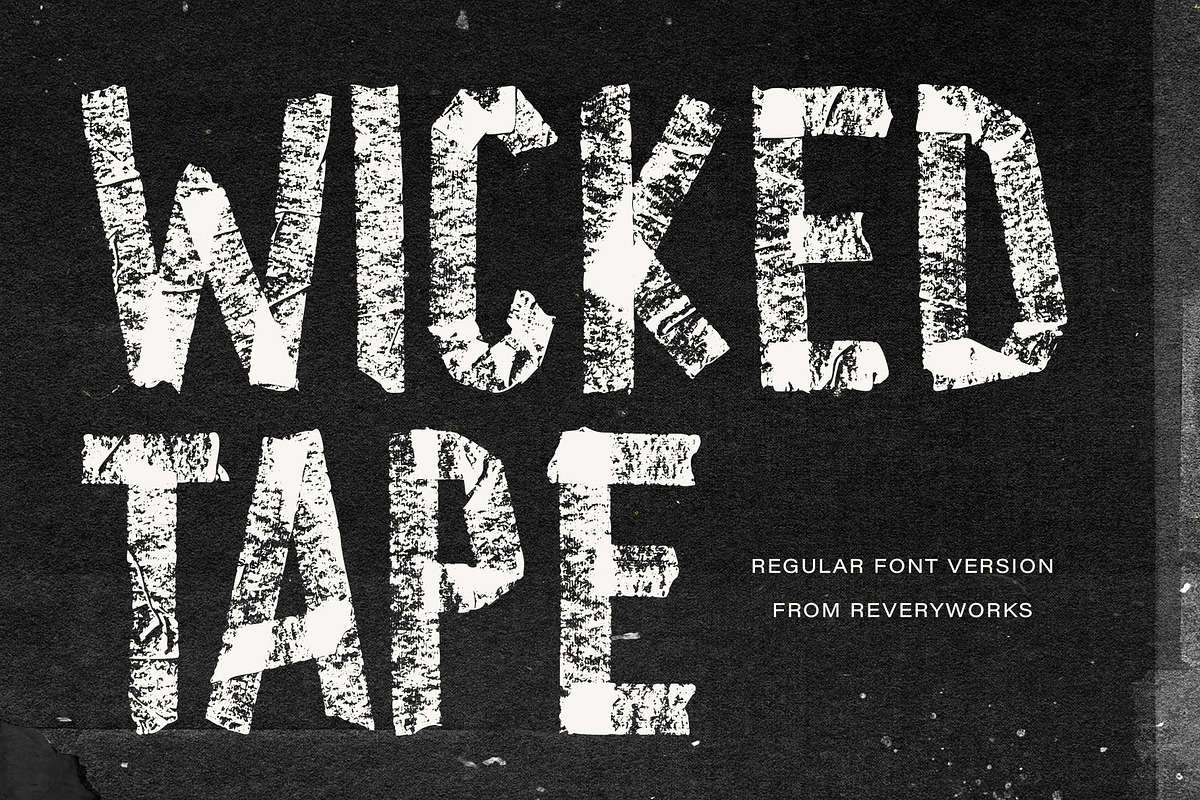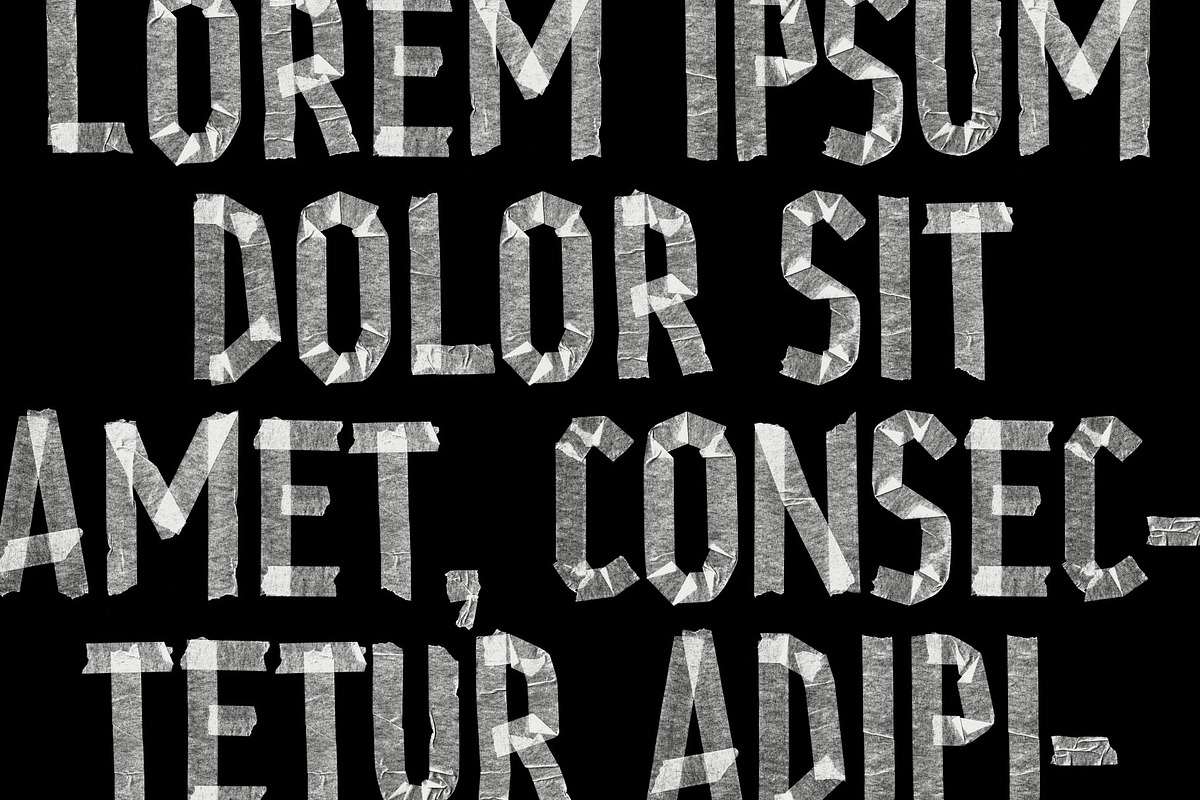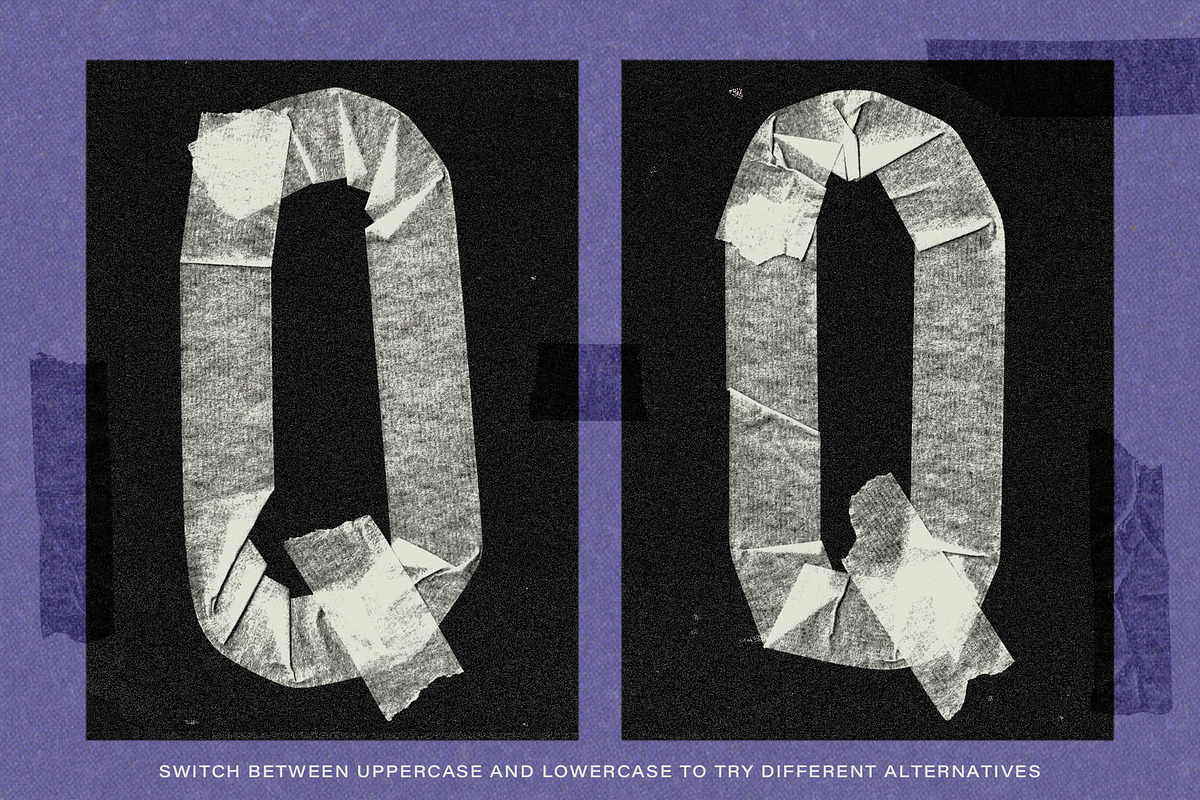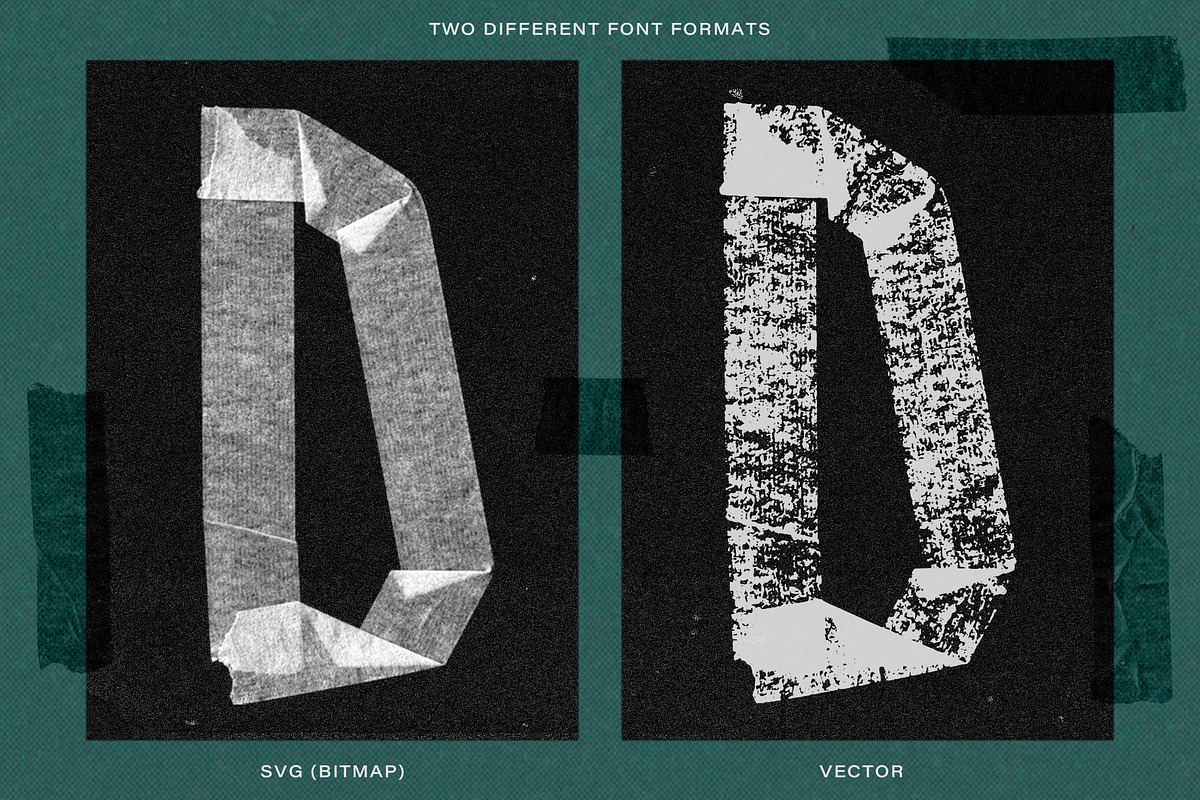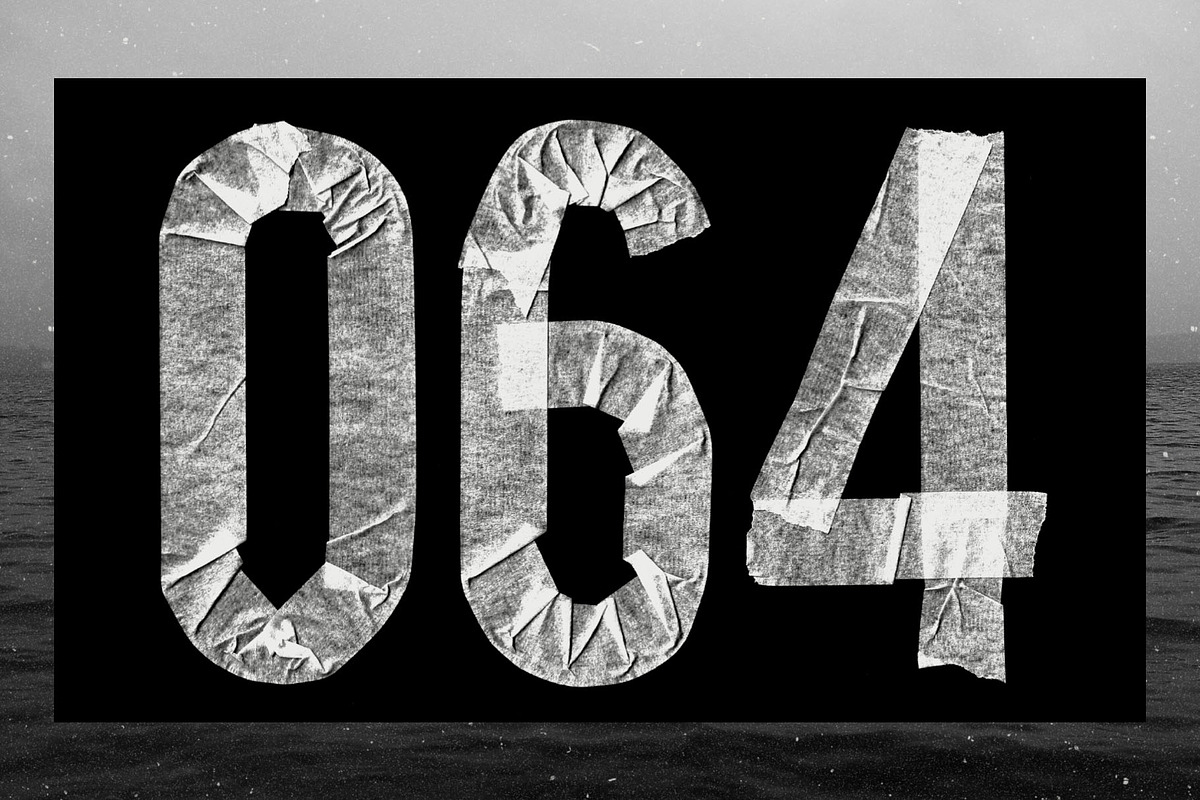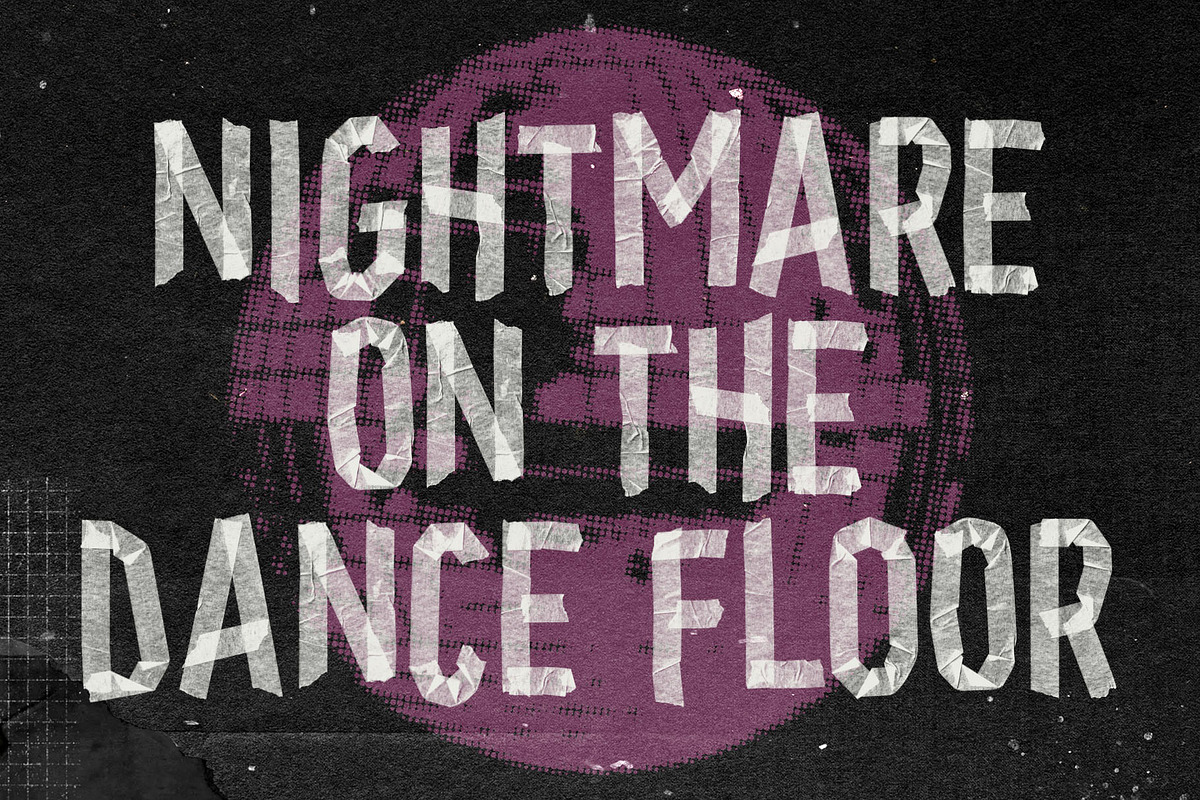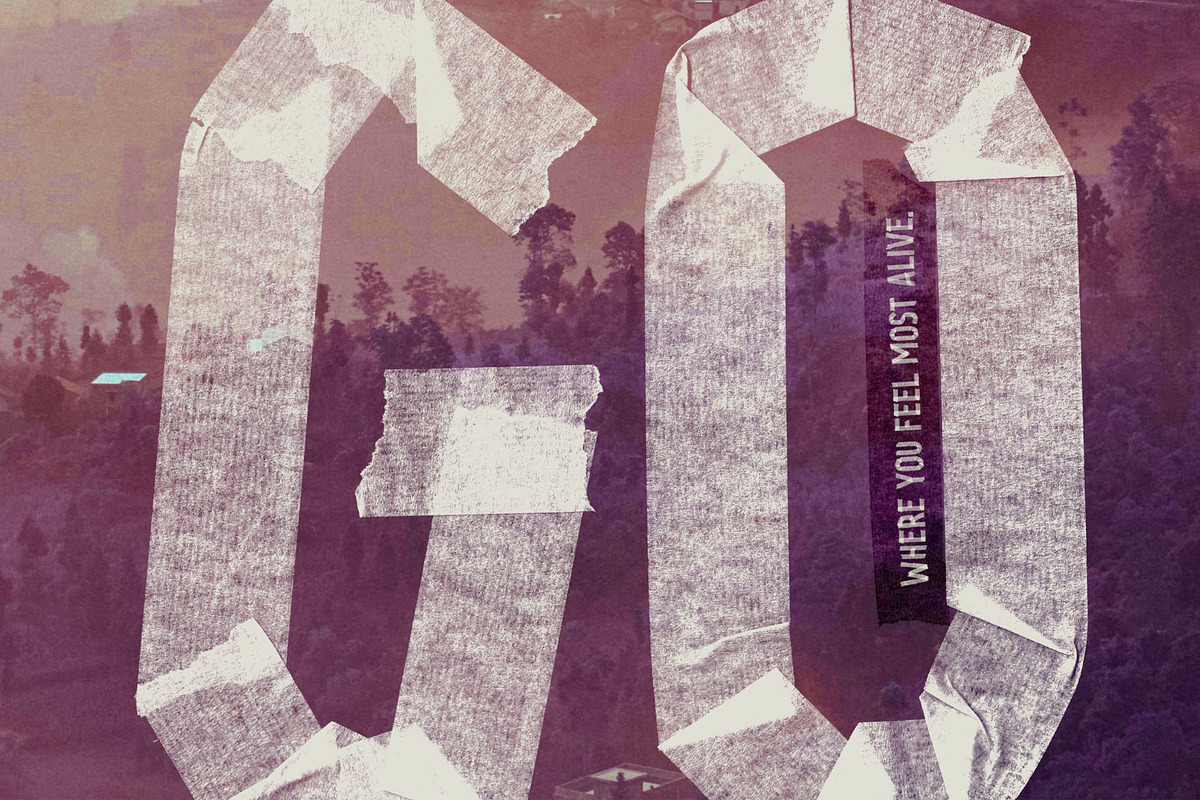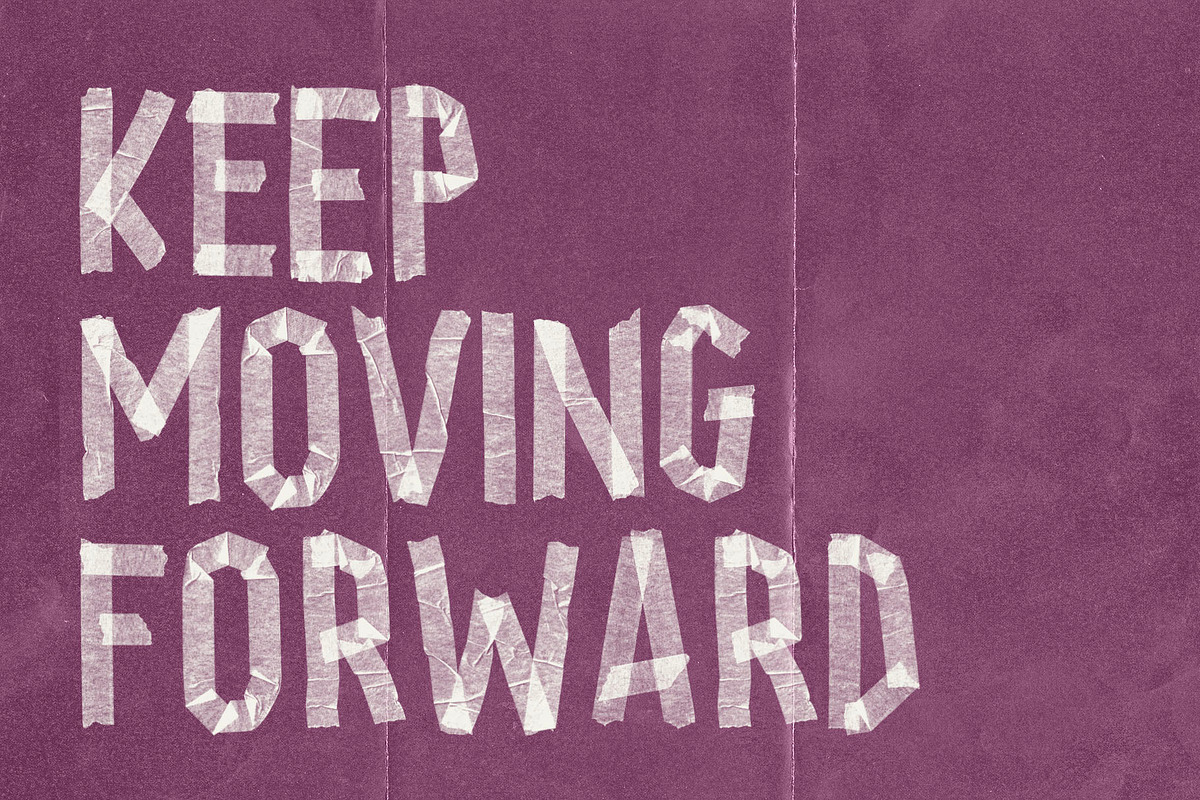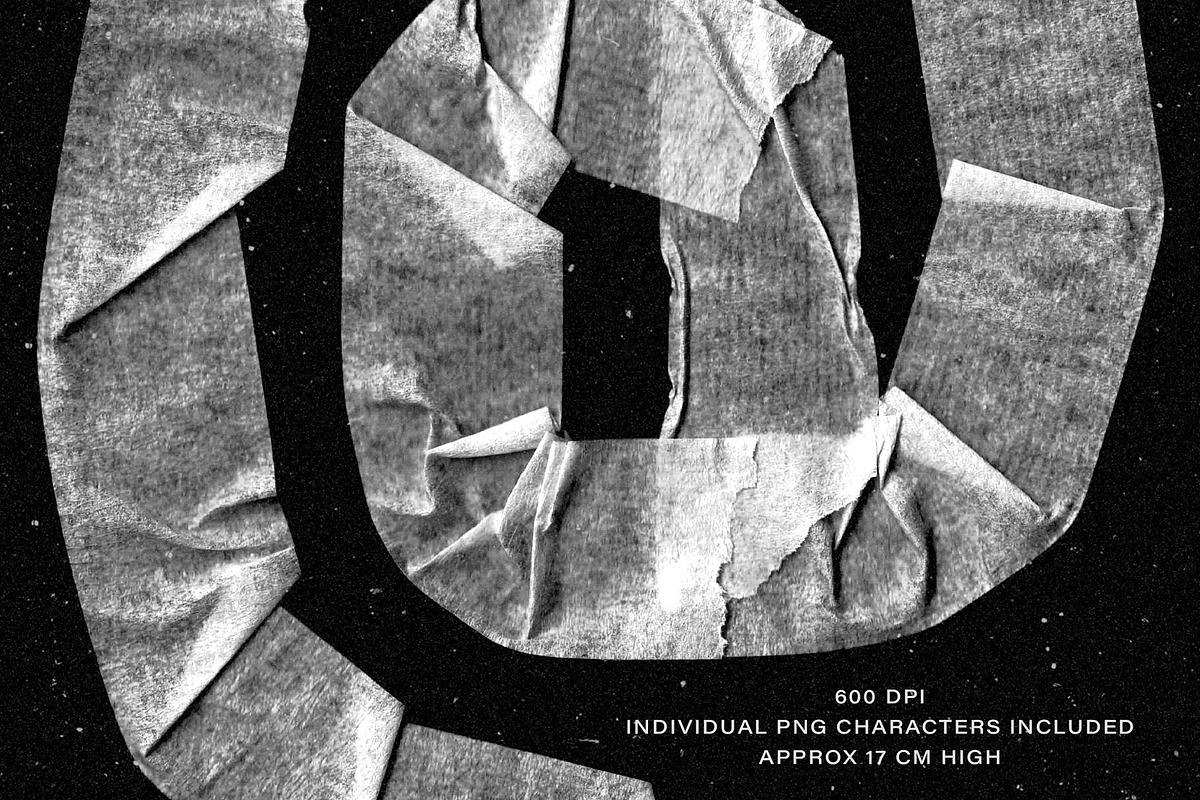
Wicked Tape Typeface
Introducing Wicked Tape! A new hand crafted typeface made with real masking tape. Available as SVG (bitmap) and a super realistic Vector font. Font characters are also included as a transparent individual PNGs (600 DPI) for your projects. Each character is around 17 cm in hight.
Switch between the uppercase and lowercase characters to try different stylistic alternates.
ABCDEFGHIJKLMNOPQRSTUVWXYZ abcdefghijklmnopqrstuvwxyz (as uppercase stylistic alternates) 0123456789 ?!%$€£&@#/*()[]{}®©+=-_‹›,.’~